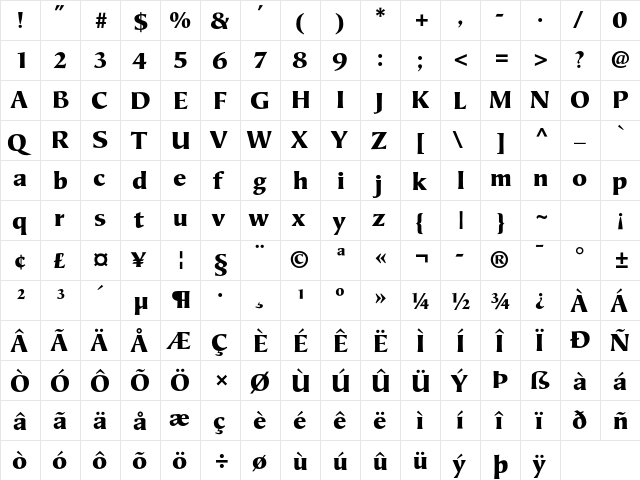
Mariposa Sans Std Black
| Foundry | International Typeface Corporation |
| Designer | Philip Bouwsma |
Design Context for Mariposa Sans Std Typeface
Mariposa Sans Std takes a measured approach to typography — its balanced proportions and neutral character make it a reliable workhorse for both digital and print work.